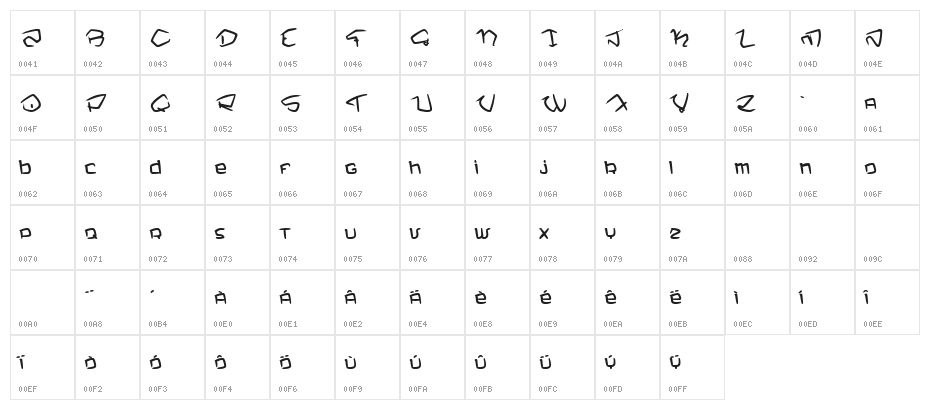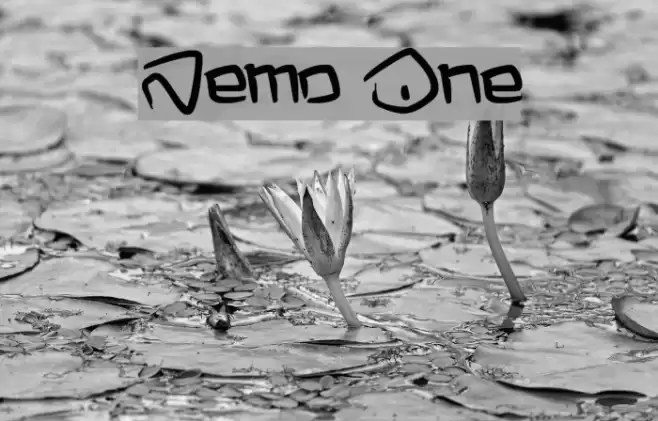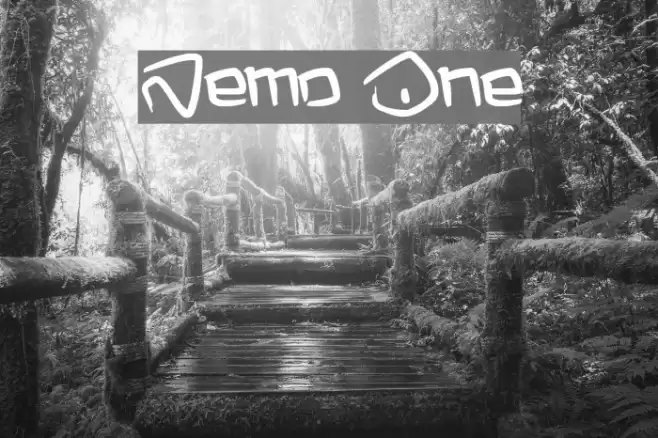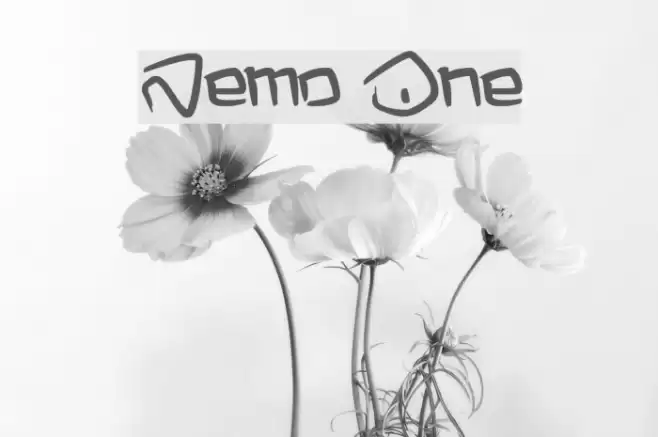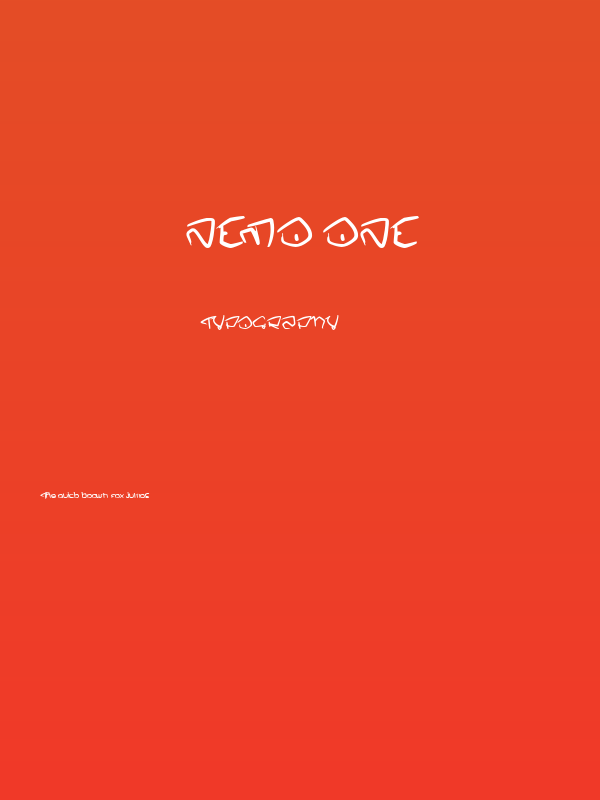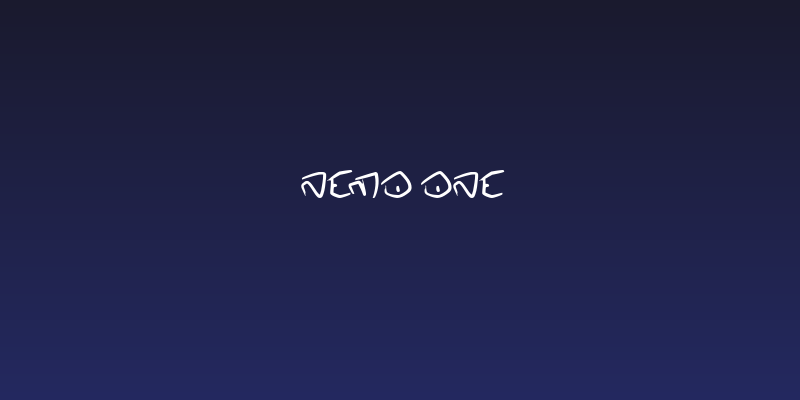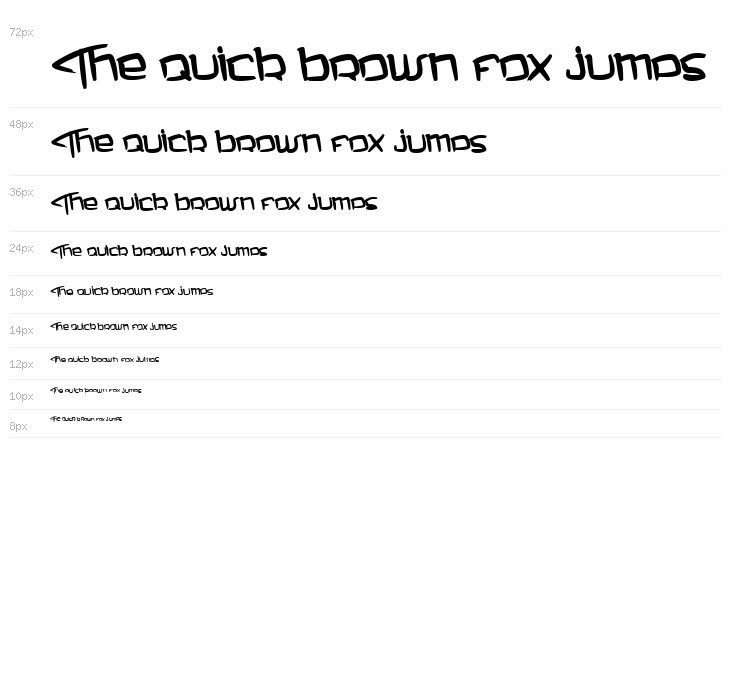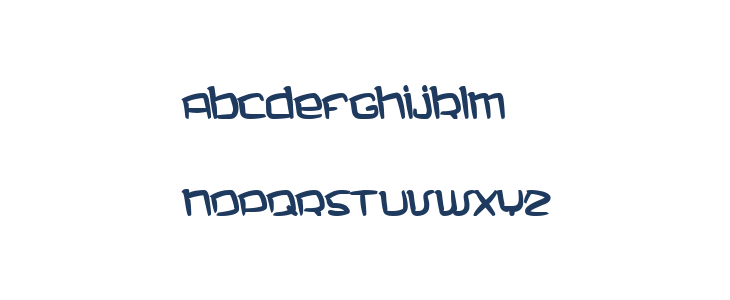
Nemo One Font
Nemo One Description
This font features a unique, graffiti-inspired style with angular and edgy letterforms. The uppercase letters exhibit a dynamic and energetic appearance, with sharp angles and a sense of movement. The lowercase letters maintain this aesthetic, offering a cohesive look across the alphabet. The numbers and special characters follow the same design principles, ensuring consistency throughout. This font's bold and expressive nature makes it stand out, ideal for projects that require a strong visual impact.
| Proposed Projects | Perfect for street art designs, urban-themed posters, music album covers, and edgy branding projects. |